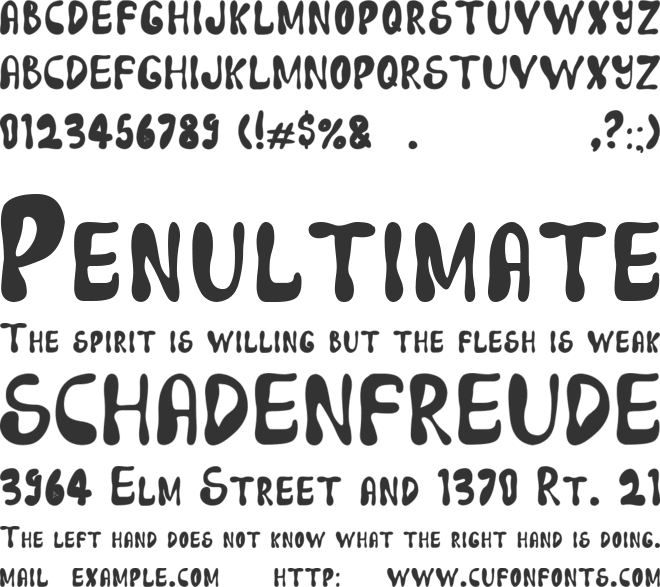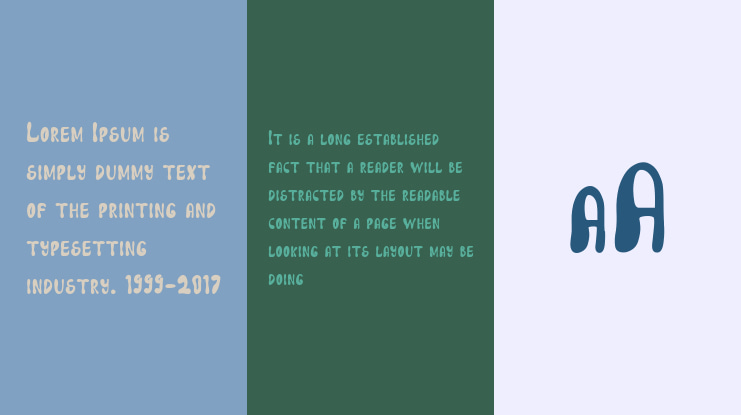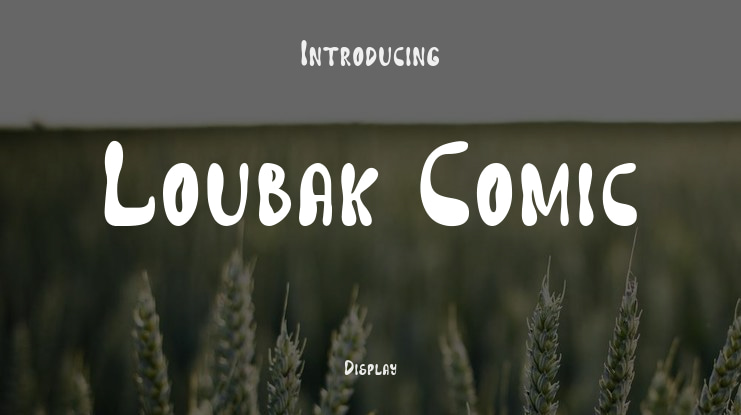
Loubak Comic Font
Loubak Comic is a bold, funky display font with plump, rounded letterforms — bouncy and playful, built for fun, high-energy designs. Its cheerful balloon-style curves are perfect for kids' birthday parties, candy and toy packaging, circus and carnival posters, whimsical stickers, and cheerful branding that needs a joyful punch.